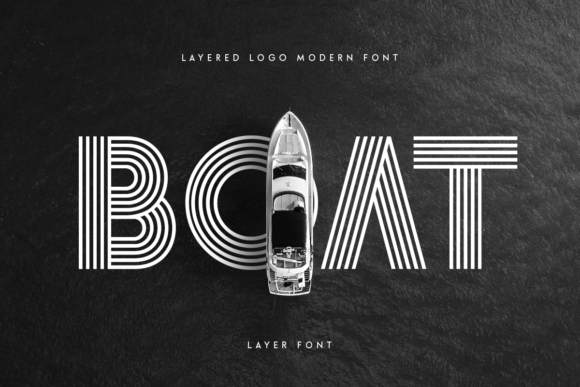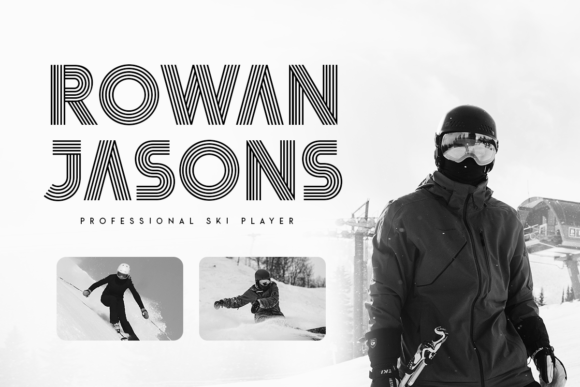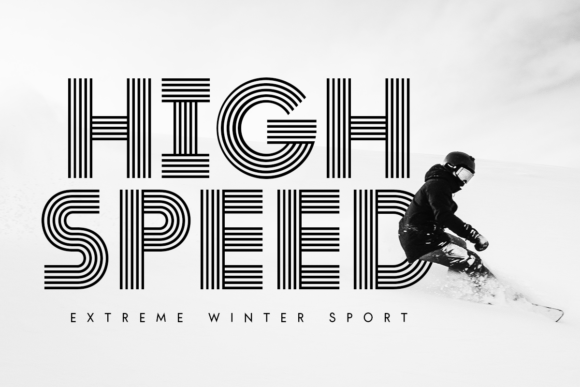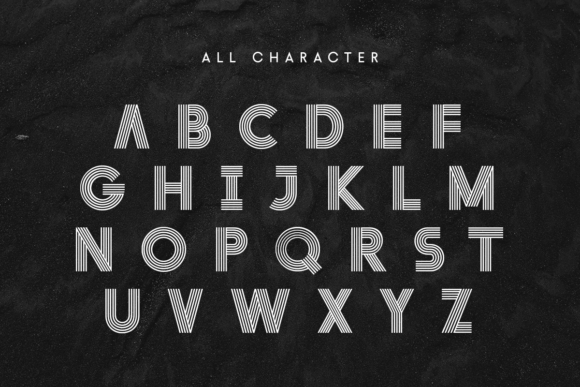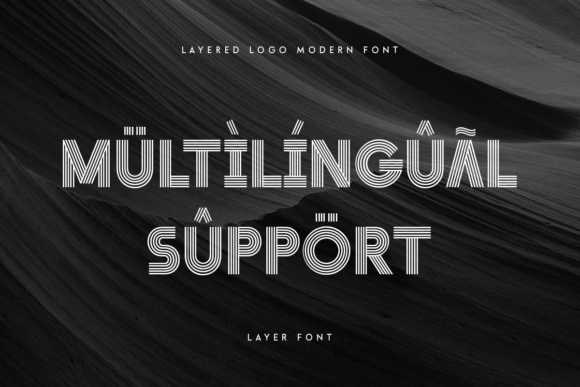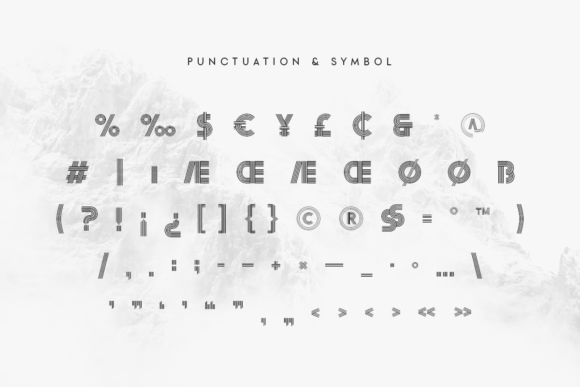
Introduction to Layer Font
Layer is a bold and assertive sans serif font.
Key Features of Layer Font
Why Choose Layer Font?
Layer Font offers exceptional quality and versatility, making it a valuable addition to your design toolkit. Whether you’re creating for personal projects or commercial use, Layer Font delivers professional results.